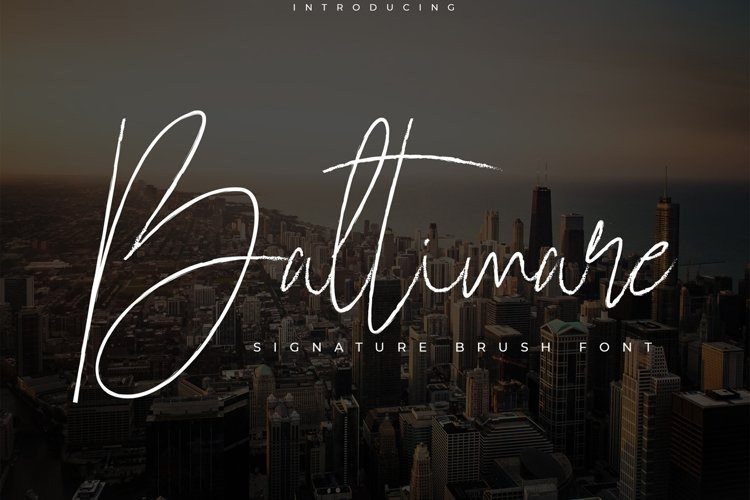
Baltimare Font
Baltimare Brush Font is an exciting handwritten font created by jadatype with brush style. With a thin yet elegant’s impression, Baltimare is suitable for product names, logotypes, social media needs, branding designs, fonts for book titles, movie names, and others. contains standard English letters and some multilingual letters. Baltimare’s also easy to install in applications such as Illustrator, Photoshop, or Microsoft Word.